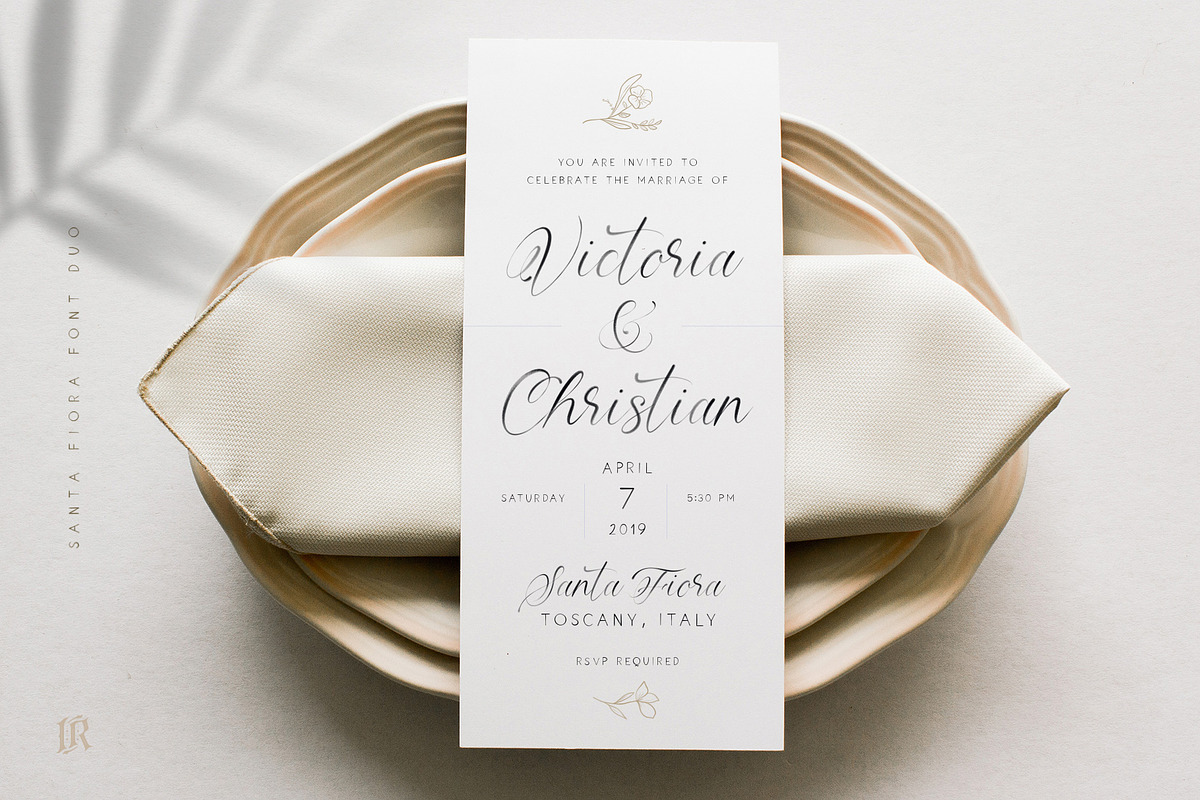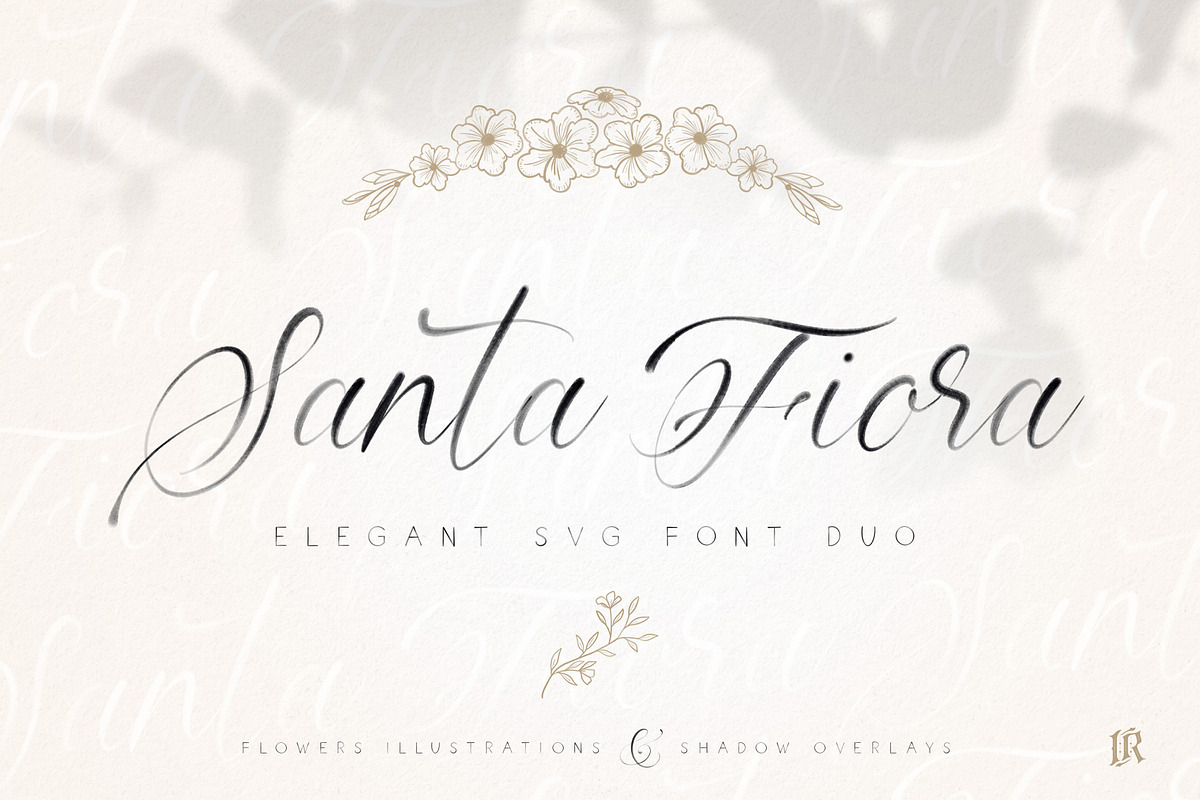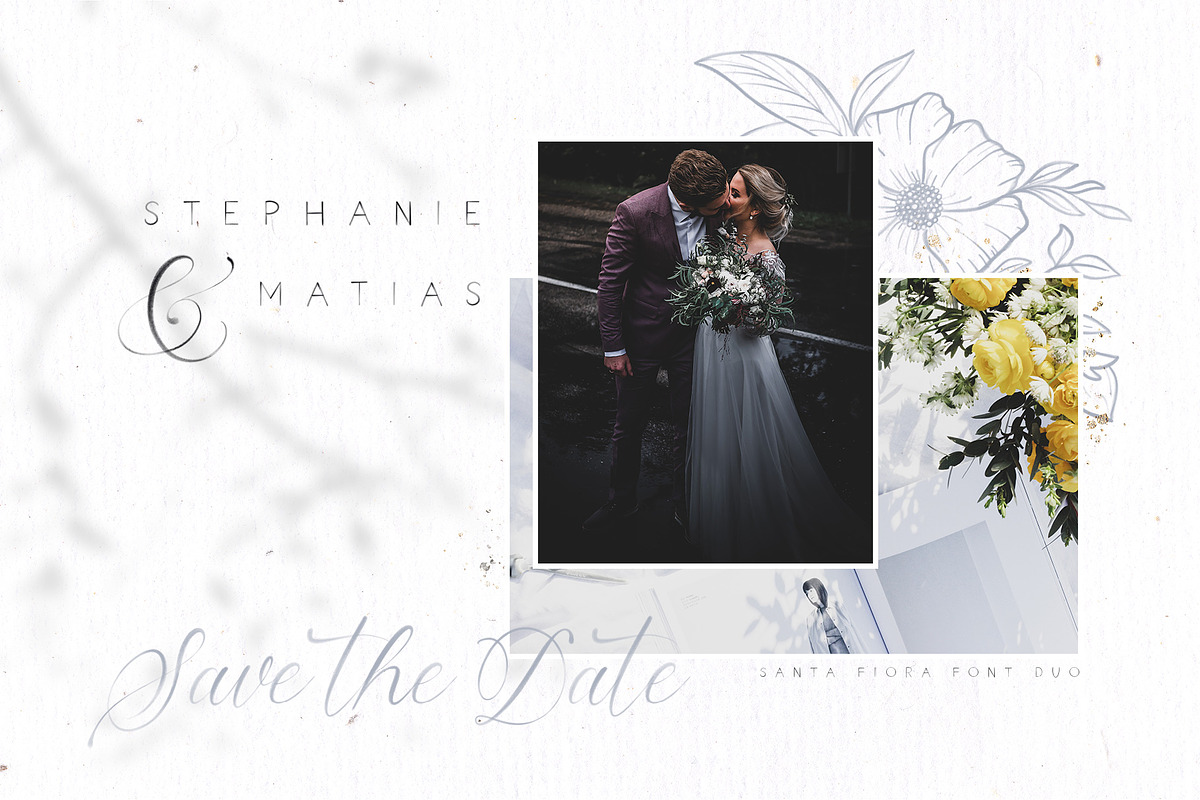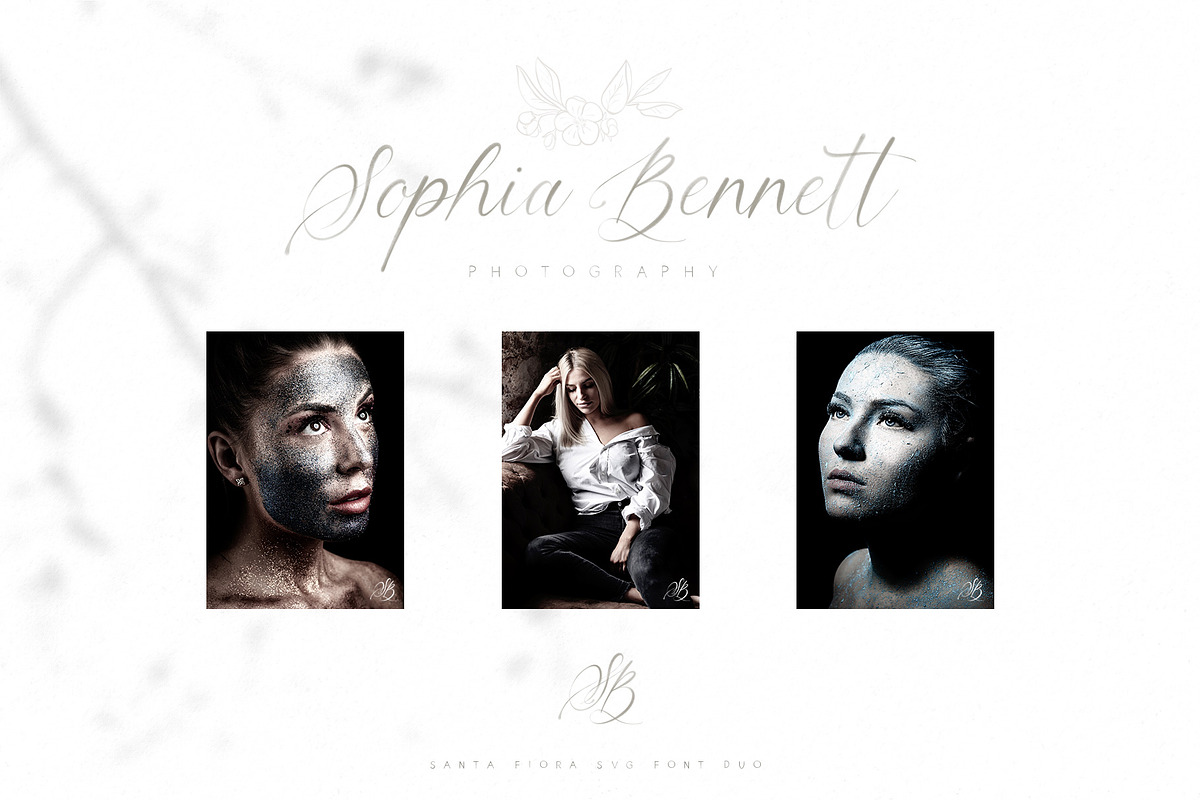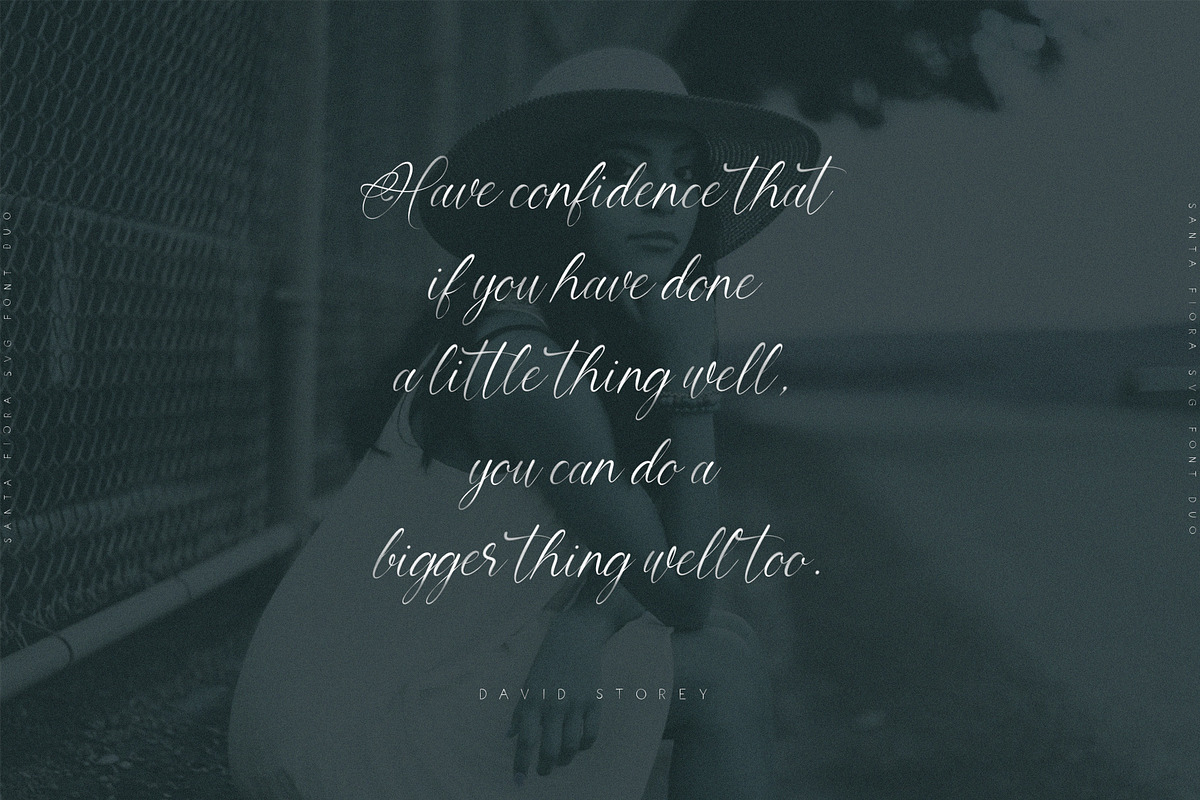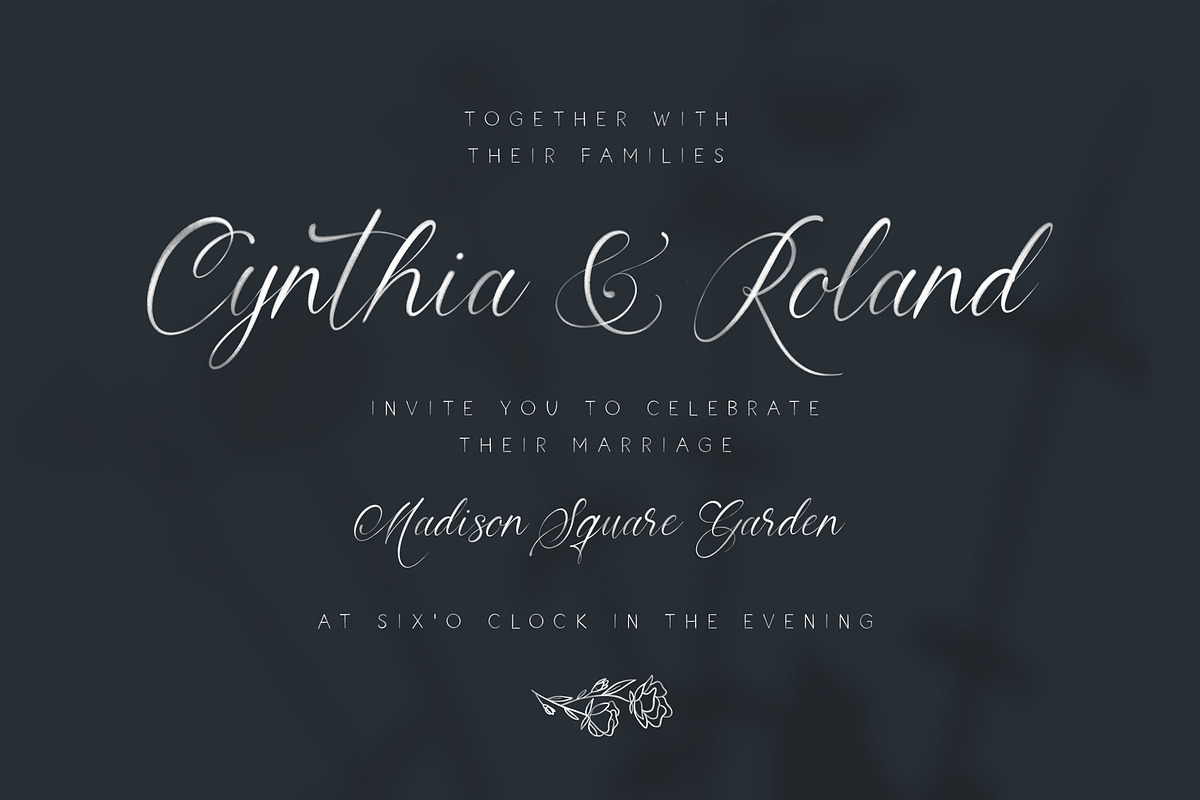
Santa Fiora SVG Font Duo
Introducting the new elegant font duo Santa Fiora SVG, hand lettered fonts with watercolor effect. Santa Fiora comes in SVG and “normal” vector version. SVG font preserves all the high definition detail of the original handwritten letters. Using OpenType-SVG technology it truly looks realistic.
Santa Fiora Script SVG Font-A high definition OpenSVG brush font with realistic watercolor texture (You need to be using Photoshop CC 2017.1.1, Illustrator CC 2018 or later)
Santa Fiora Sans SVG Font-A high definition OpenSVG brush font with realistic watercolor texture (You need to be using Photoshop CC 2017.1.1, Illustrator CC 2018 or later)